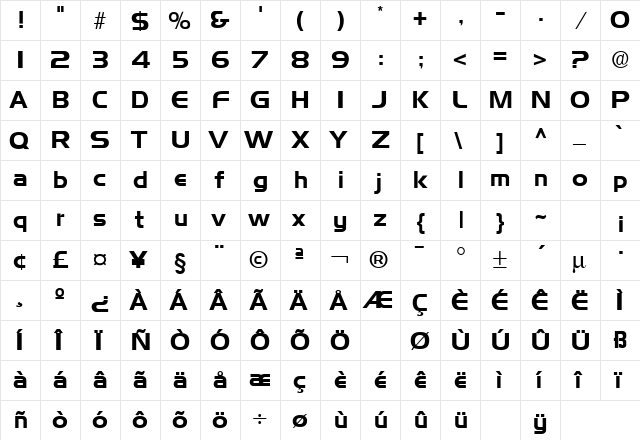
Disney Epcot Center Regular
Design Context for Disney Epcot Center Typeface
Disney Epcot Center is a composed and adaptable typeface that performs quietly and consistently across a wide range of design contexts.